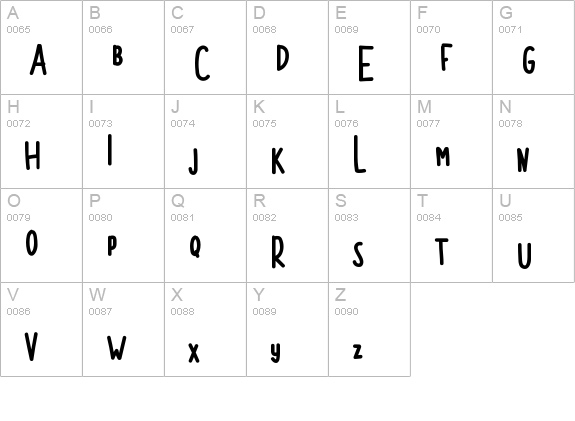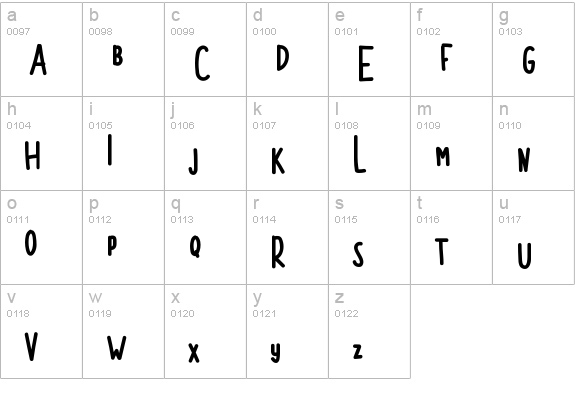
MORGENTA Font Details
MORGENTA is a free for personal use font in the Fancy > Cartoon category, designed by Fana Studio. It has been downloaded 89 times and is available for Windows, Mac and Linux.
MORGENTA is a stunning and versatile font that exudes elegance and sophistication. With its unique combination of modern and classic elements, this font is perfect for a wide range of design projects, from branding to editorial design. The sleek lines and stylish curves of MORGENTA add a touch of luxury to any design.